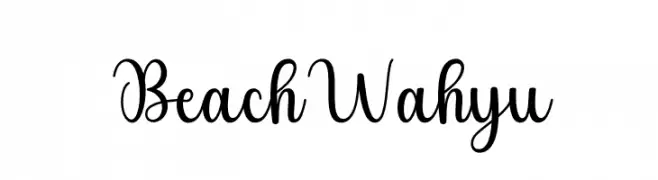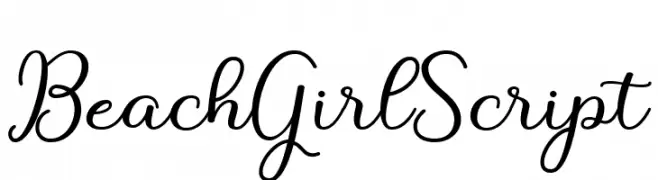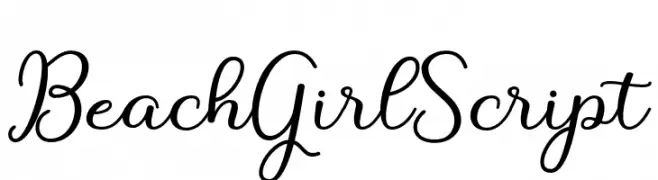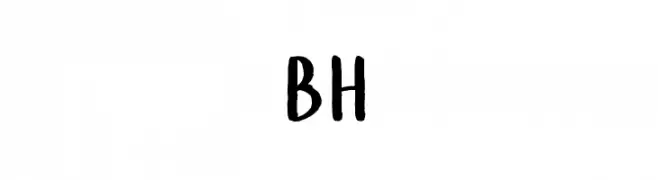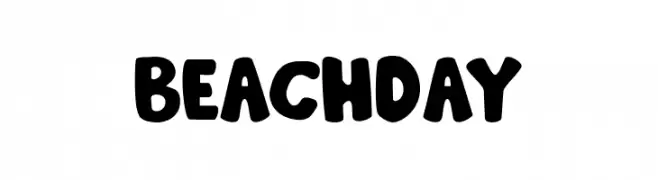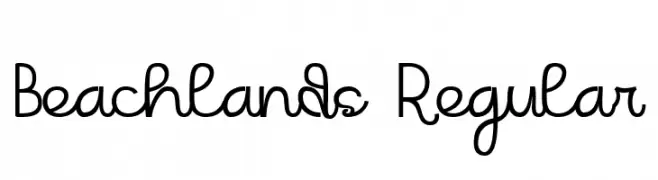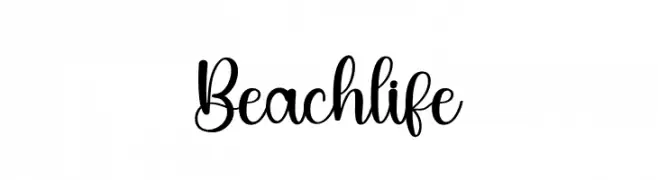
A playful and elegant script font with a handwritten touch.
A playful and elegant script font with smooth curves and whimsical appeal.
A playful, bold font with a hand-drawn, beachy vibe.
A pixelated, retro-style font with a blocky, geometric design.
A decorative font with beach-themed illustrations for each character.
A bold, grunge-style font with a distressed texture and dynamic appearance.
A bold, playful font with rounded, bubbly characters and a hand-drawn feel.
A playful, cursive font with a handwritten feel, perfect for personal and creative projects.
A playful, elegant script font with fluid, connected letters.
A bold, hand-painted style font with a playful and casual vibe.